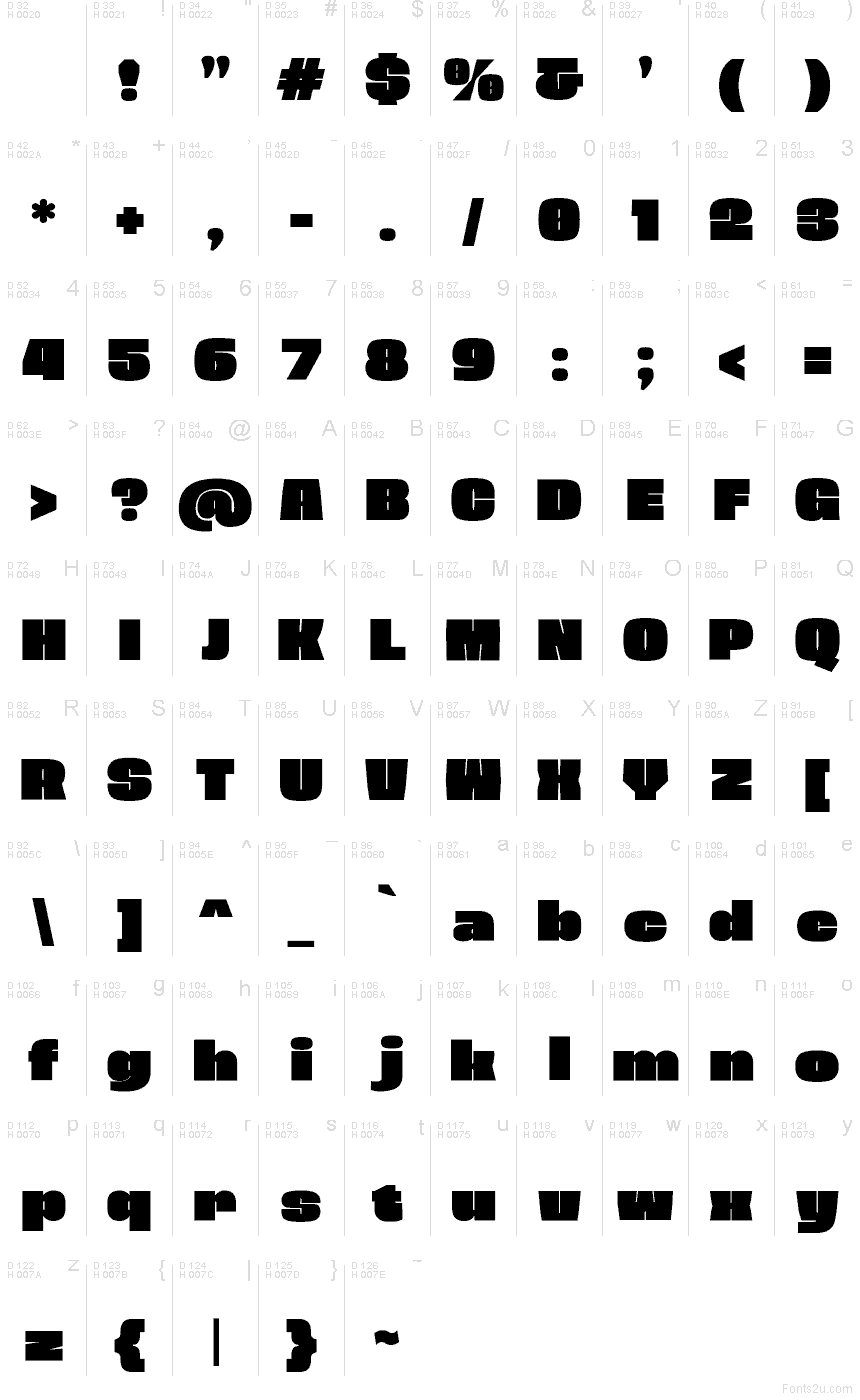
Oreon Fat
Oreon Fat font by Limitype is a free sans serif typeface that hits like a bold poster headline straight out of a bustling street market. Its ultra-thick forms, tight spacing, and squared-off shapes with subtle inner curves create a blocky, almost sculpted look that feels loud but controlled. Letters stack together like solid bricks of ink, giving you maximum impact in very little space.
Using Oreon Fat, you can punch up logo wordmarks, social media graphics, gaming titles, flyers, packaging, and bold website hero text. This free font thrives at large sizes where its chunky silhouettes and compact rhythm can really dominate the layout. Pair it with a clean, light-weight grotesque for body copy to balance all that visual weight and let Oreon Fat handle the shouting.